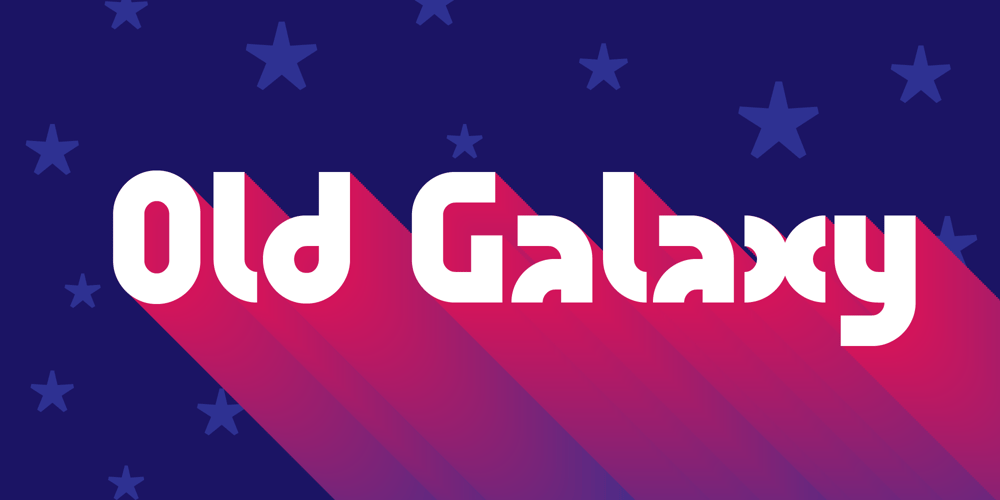
Old galaxy
Old galaxy font
Old galaxy Font Family was designed by Pedro Biz and published by Turto Studio. Old galaxy contains 1 styles and family package options. Old Galaxy is an old fashioned interstellar sci-fi with a twist of good humor geometric display font. It is perfectly suited for traditional media and the web. Great for logos, banners, posters, and graphic artists.